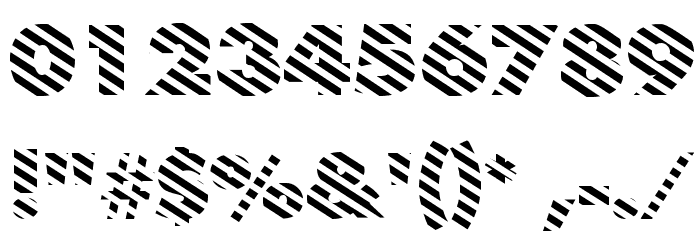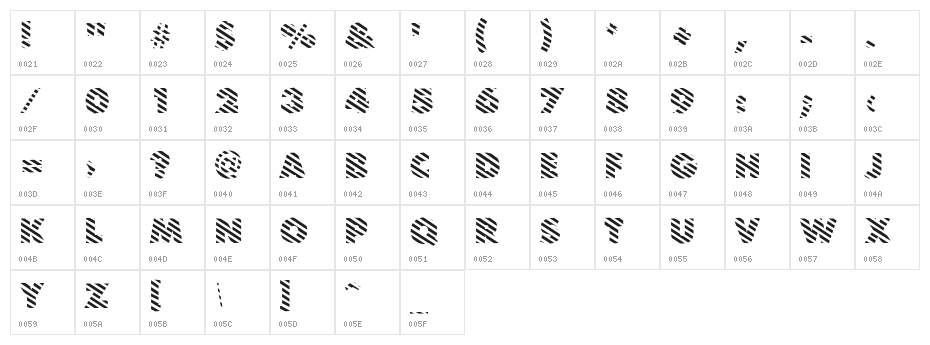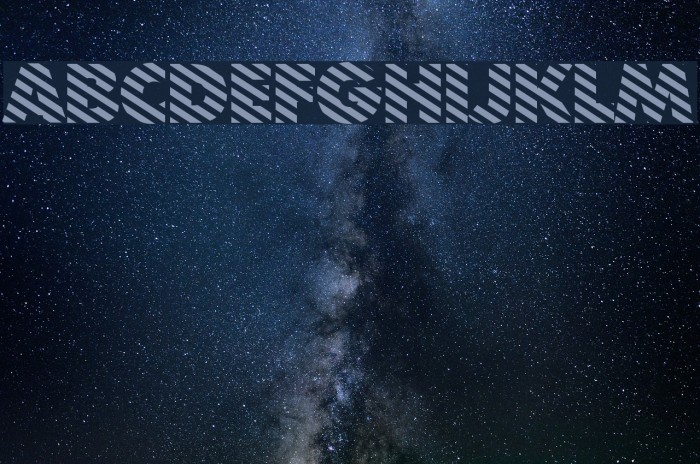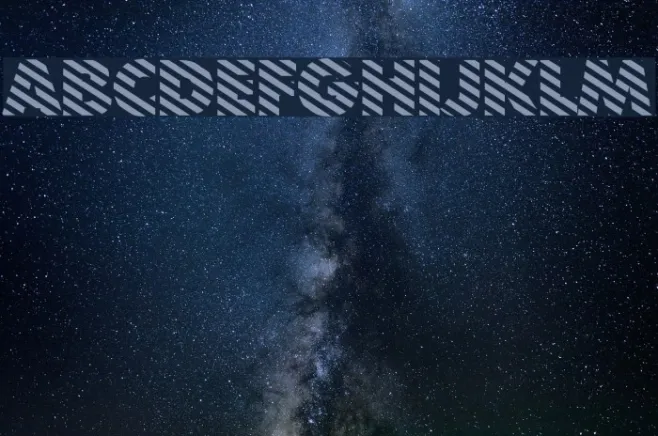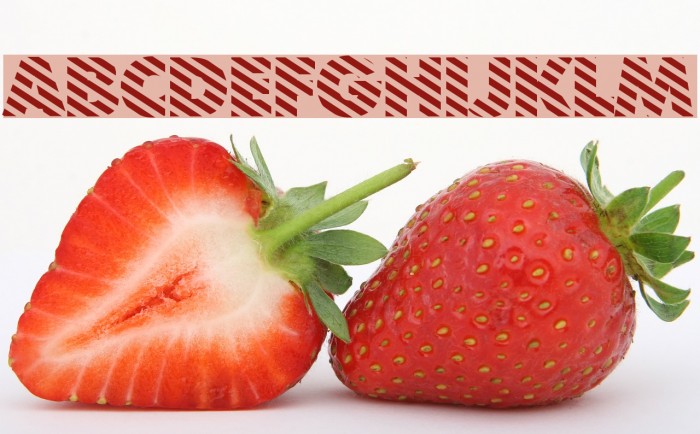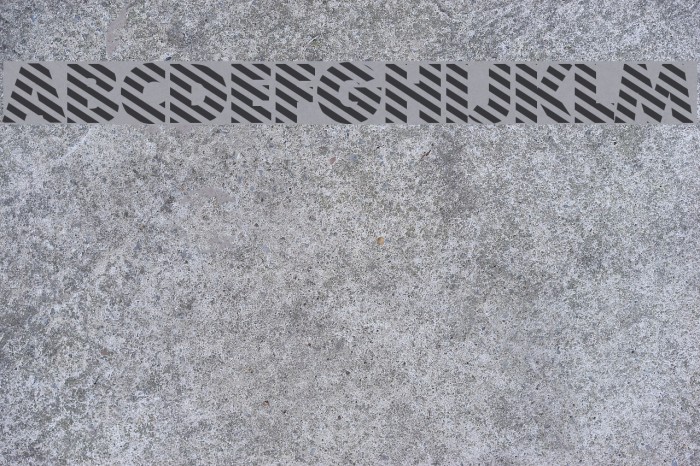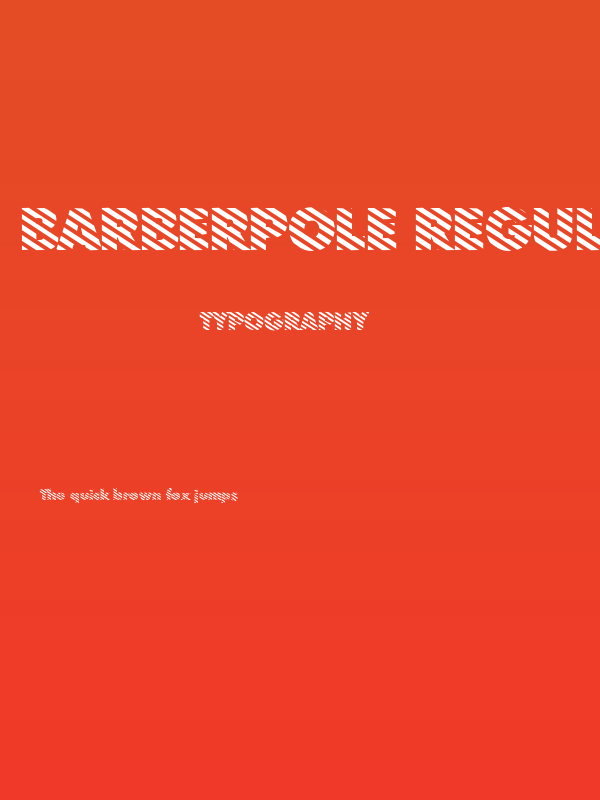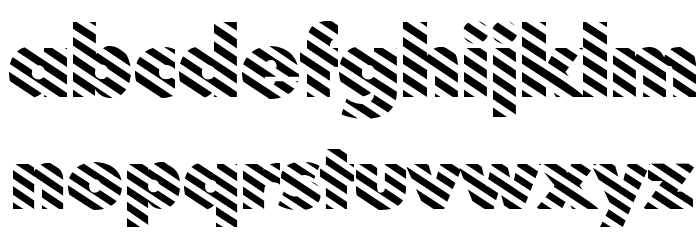
BarberPole Regular Font
BarberPole Regular Description
This font features a distinctive striped pattern reminiscent of a barber pole, giving it a unique and eye-catching appearance. The characters are bold and display a playful yet structured design, with diagonal lines running through each letter and number. This creates a sense of movement and dynamism, making it ideal for projects that require a strong visual impact. The uppercase and lowercase letters maintain a consistent style, while the numerals and special characters complement the overall aesthetic. The font's decorative nature makes it suitable for creative and artistic applications.
| Proposed Projects | Ideal for branding, posters, event invitations, and any design requiring a bold, playful touch. |